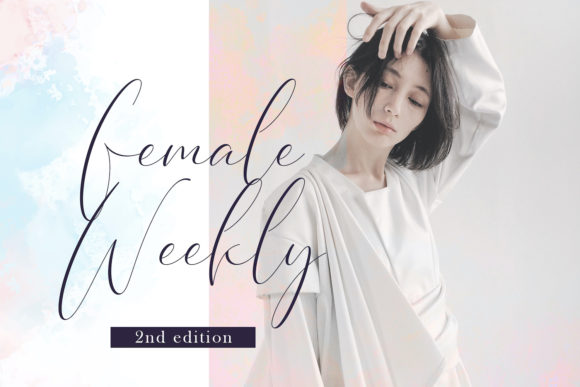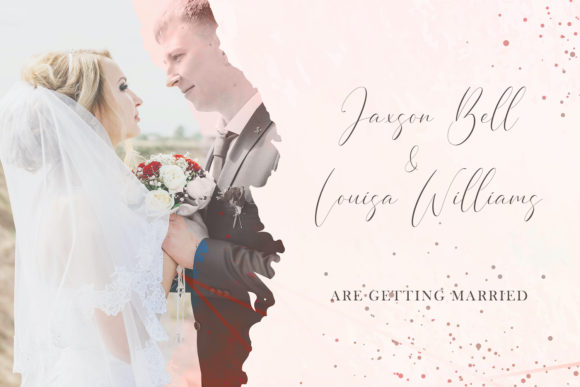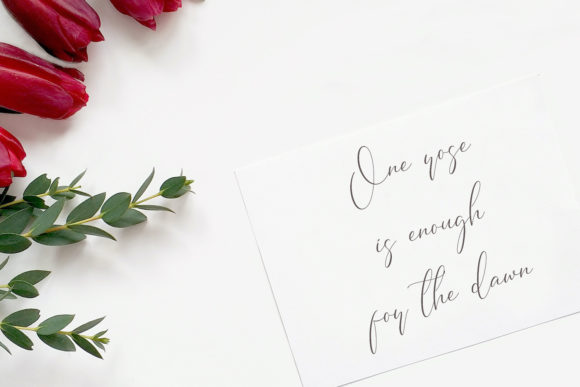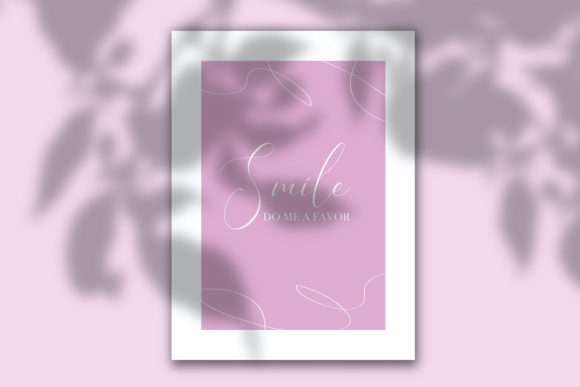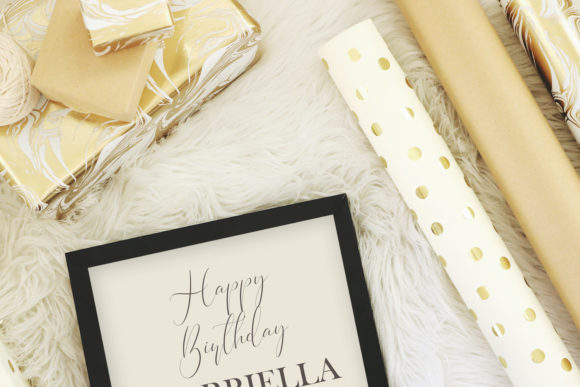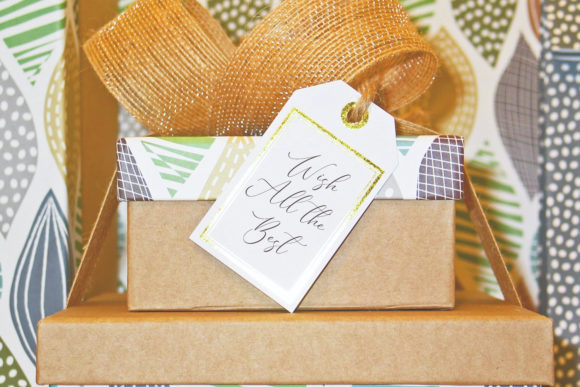
Introducing Beauty Heart Font: The Sweetest Addition to Your Design Arsenal
Are you a designer or crafter looking for a font that can add a touch of sweetness and elegance to your projects? Look no further than Beauty Heart Font! This gorgeous handwritten font is designed to elevate a wide range of design projects to the highest level, making it perfect for branding, headings, wedding designs, invitations, signatures, logos, labels, and much more.
Handwritten fonts have a unique charm that can add a personal touch to any design project. They can convey a sense of warmth, friendliness, and approachability that is hard to achieve with more formal fonts. Beauty Heart Font is no exception, with its delicate and intricate strokes that are sure to capture the hearts of designers and crafters alike.
What Makes Beauty Heart Font So Special?
So, what sets Beauty Heart Font apart from other fonts out there? Here are just a few of its standout features:
- Sweet and Gorgeous: Beauty Heart Font is a true showstopper, with its beautiful and delicate strokes that are sure to add a touch of sweetness to any design project.
- Versatile: This font is incredibly versatile, making it perfect for a wide range of design projects, from branding and headings to wedding designs and invitations.
- Elegant: Beauty Heart Font has an undeniable air of elegance that is sure to elevate any design project to the highest level.
- Easy to Read: Despite its intricate strokes, Beauty Heart Font is surprisingly easy to read, making it perfect for use in body text as well as headings.
Beauty Heart Font is a dream come true for designers and crafters who are looking for a font that can add a touch of personality to their projects. Whether you’re creating wedding invitations, designing a logo for a new business, or crafting a one-of-a-kind sign, this font is sure to impress.
How to Use Beauty Heart Font
Using Beauty Heart Font is incredibly easy, and there are countless ways to incorporate it into your design projects. Here are just a few ideas to get you started:
- Wedding Designs: Use Beauty Heart Font to create beautiful wedding invitations, place cards, and other wedding stationery.
- Branding: Add a touch of elegance to your brand with Beauty Heart Font, perfect for use in logos, packaging, and marketing materials.
- Signatures: Use Beauty Heart Font to create beautiful signatures that are sure to make a lasting impression.
- Labels: Add a touch of sweetness to your labels with Beauty Heart Font, perfect for use on products, packaging, and more.
Tips and Tricks for Getting the Most Out of Beauty Heart Font
To get the most out of Beauty Heart Font, here are a few tips and tricks to keep in mind:
- Experiment with Different Sizes: Beauty Heart Font looks great in a variety of sizes, so don’t be afraid to experiment to find the perfect size for your project.
- Pair with Other Fonts: Beauty Heart Font pairs beautifully with other fonts, so try pairing it with a bold font for a striking contrast.
- Use in Combination with Images: Beauty Heart Font looks great in combination with images, so try using it to add a touch of elegance to your design projects.
In conclusion, Beauty Heart Font is a sweet and gorgeous handwritten font that is sure to elevate a wide range of design projects to the highest level. With its delicate and intricate strokes, this font is perfect for designers and crafters who are looking for a font that can add a touch of personality to their projects. Whether you’re creating wedding designs, branding materials, or simply looking for a font that can add a touch of elegance to your design projects, Beauty Heart Font is the perfect choice.